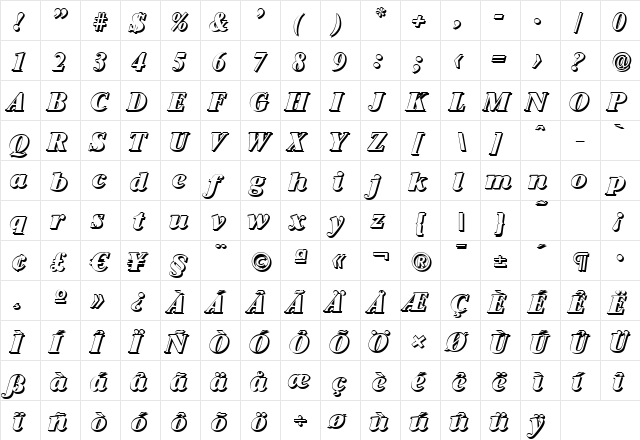
SimonBeckerShadow-Heavy Italic Font Preview
SimonBeckerShadow-Heavy Italic
SimonBeckerShadow-Heavy Italic Font Details
Design Context for SimonBeckerShadow-Heavy Typeface
SimonBeckerShadow-Heavy brings ornamental detail and strong personality to headlines and identities, where visual impact matters more than quiet functionality. The slanted form adds forward momentum and visual energy.
Font Pairing: Pair with a clean neutral sans-serif for body copy to let SimonBeckerShadow-Heavy's character lead without overwhelming the composition.
Pro Tip: Treat SimonBeckerShadow-Heavy as the centrepiece of your typographic hierarchy. One strong heading set in a decorative face can carry an entire layout.